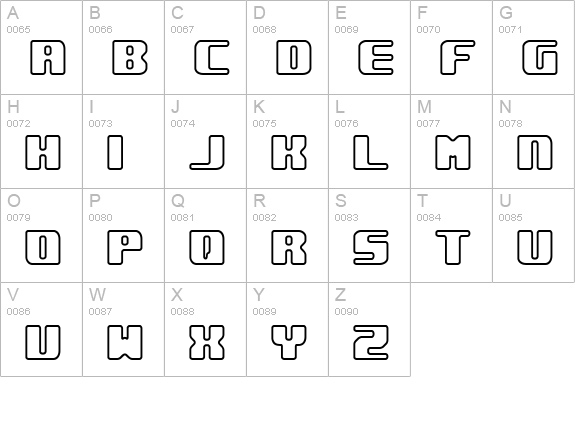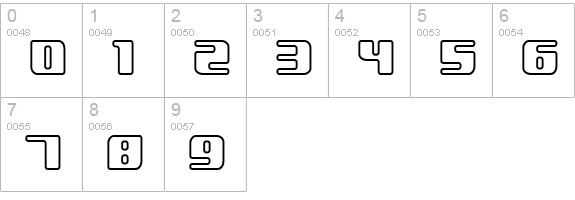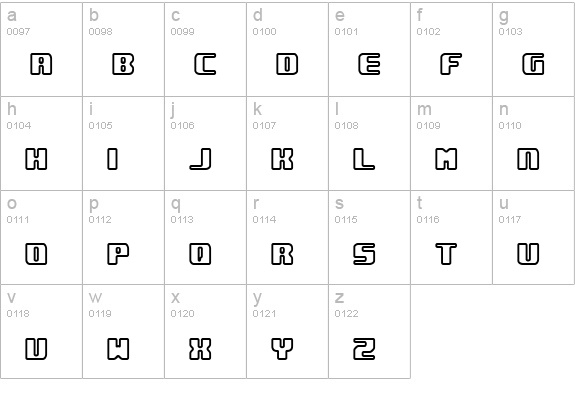
Underwhelmed Outline (BRK) Font Details
Underwhelmed Outline (BRK) font is a modern and stylish typeface that exudes simplicity and elegance. Its clean lines and subtle curves make it perfect for a variety of design projects, from logos and branding to headings and titles. This font features an outline style that adds a touch of sophistication and uniqueness to any text. Whether used for print or digital media, Underwhelmed Outline (BRK) font is sure to make a lasting impression. One of the best things about this font is that it is absolutely free! You can easily download it at FontsMarket.com, a reputable website known for its vast collection of high-quality fonts. With just a few clicks, you can add this stunning typeface to your font library and start using it in your projects right away. Underwhelmed Outline (BRK) font is compatible with various design software, making it incredibly versatile. It can be used in Adobe Photoshop, Illustrator, InDesign, and many other popular programs. With its extensive character set, including uppercase and lowercase letters, numbers, punctuation marks, and special symbols, this font offers endless possibilities for creative expression. Whether you're a professional designer or a hobbyist, Underwhelmed Outline (BRK) font is a must-have in your font collection. Its sleek and contemporary design will elevate your designs and give them a fresh and modern look. So why wait? Go ahead and download this amazing font for free at FontsMarket.com and let your creativity soar.